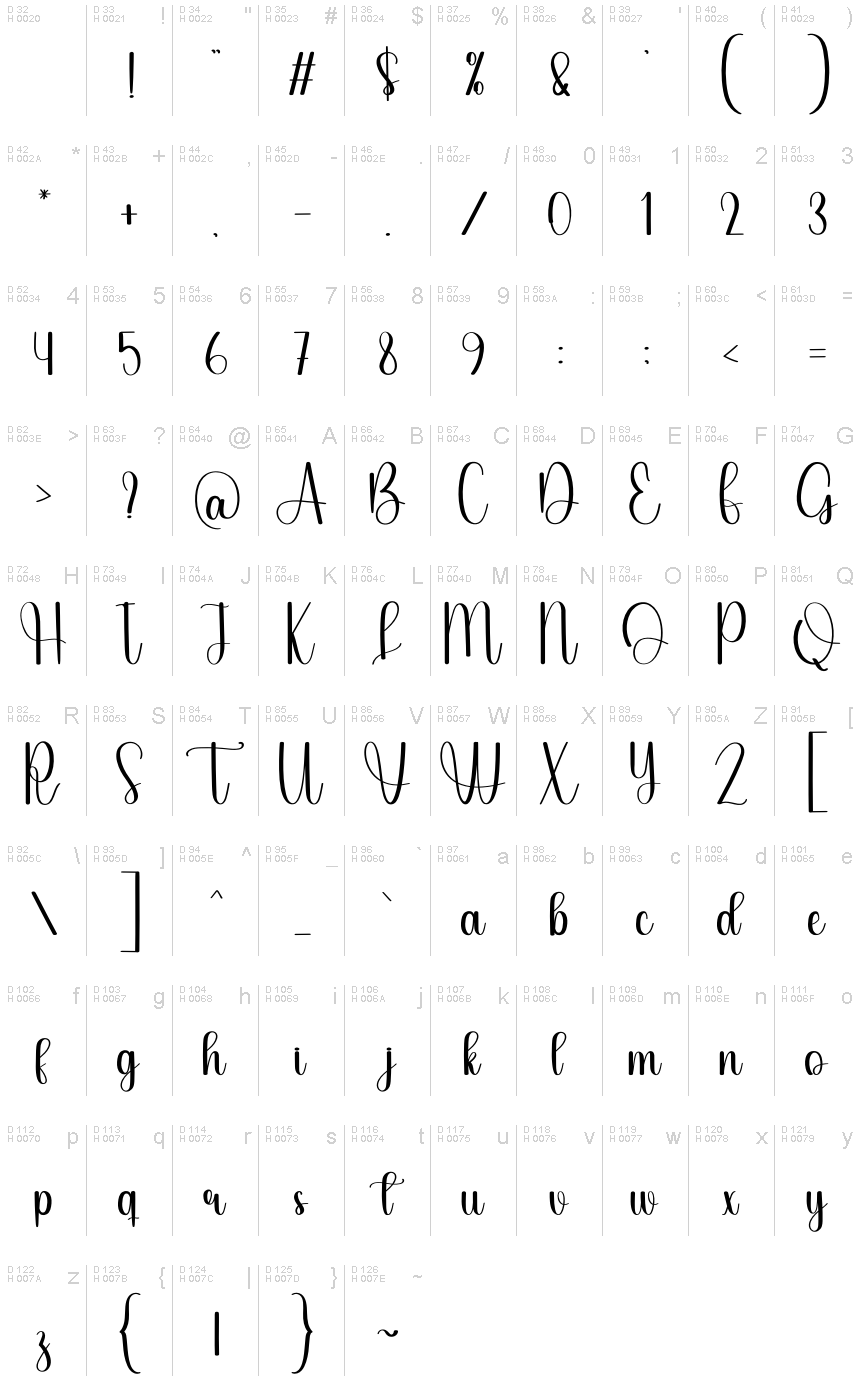
Hey Rainbow
Hey Rainbow font, designed by Scratchones, embodies a playful handwritten style that exudes warmth and personality. With its flowing lines and charming curves, this font captures the essence of spontaneity and joy. The exaggerated thickness in certain strokes adds a delightful emphasis, making it both inviting and visually engaging.
Ideal for creative projects like invitations, greeting cards, and social media graphics, Hey Rainbow brings a whimsical flair to any design. Its cheerful aesthetic resonates with audiences seeking authenticity and a touch of fun. Whether used for casual communications or festive celebrations, this font stands out as an excellent choice for those looking to make a memorable impression.